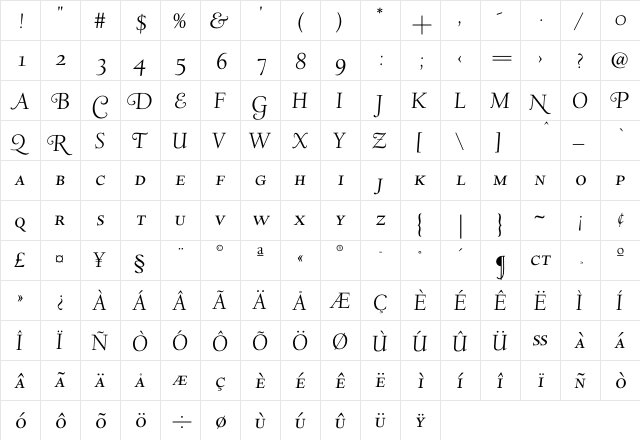
Deepdene HW-SC-Italic Font Preview
Deepdene HW-SC-Italic
Deepdene HW-SC-Italic Font Details
Design Context for Deepdene Typeface
Deepdene takes a measured approach to typography — its balanced proportions and neutral character make it a reliable workhorse for both digital and print work. The slanted form adds forward momentum and visual energy.
Pro Tip: Try Deepdene for annotation and caption copy alongside an upright companion — the contrast in angle creates a dynamic but ordered typographic system.